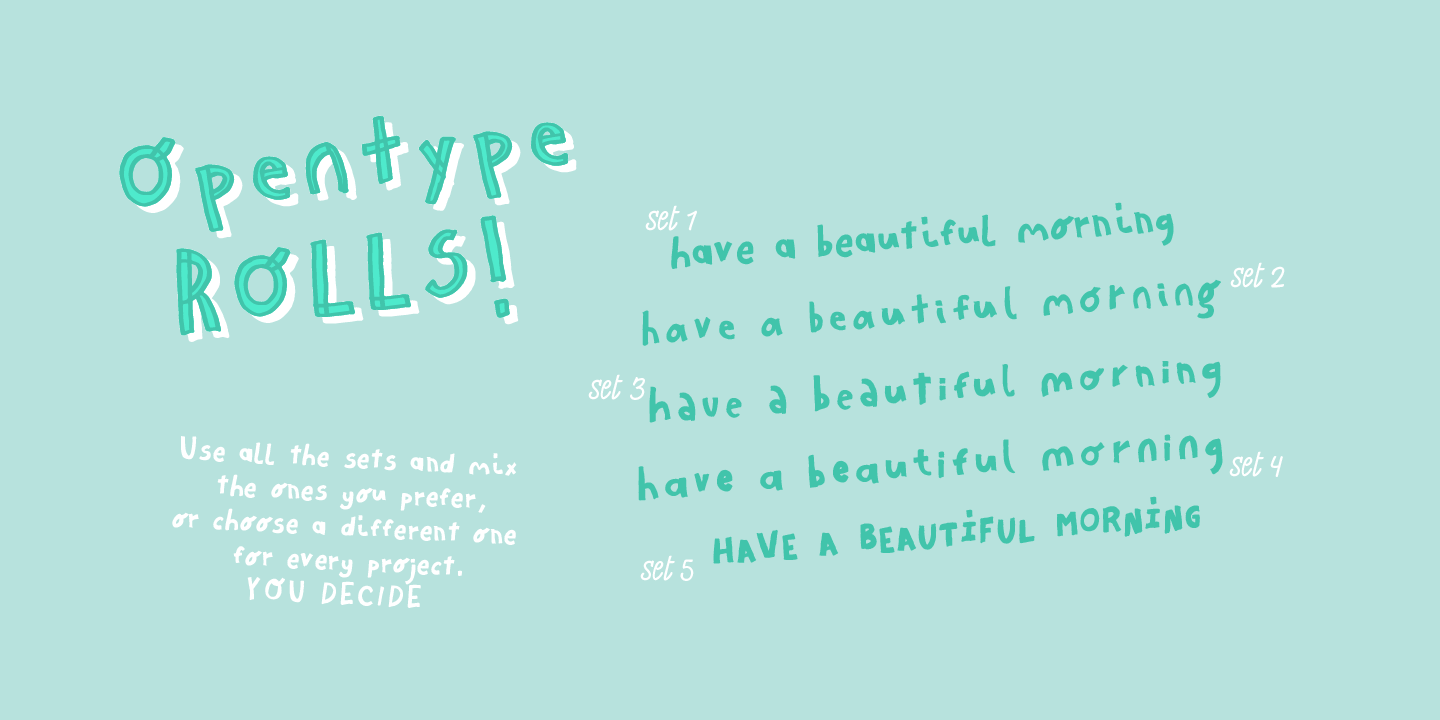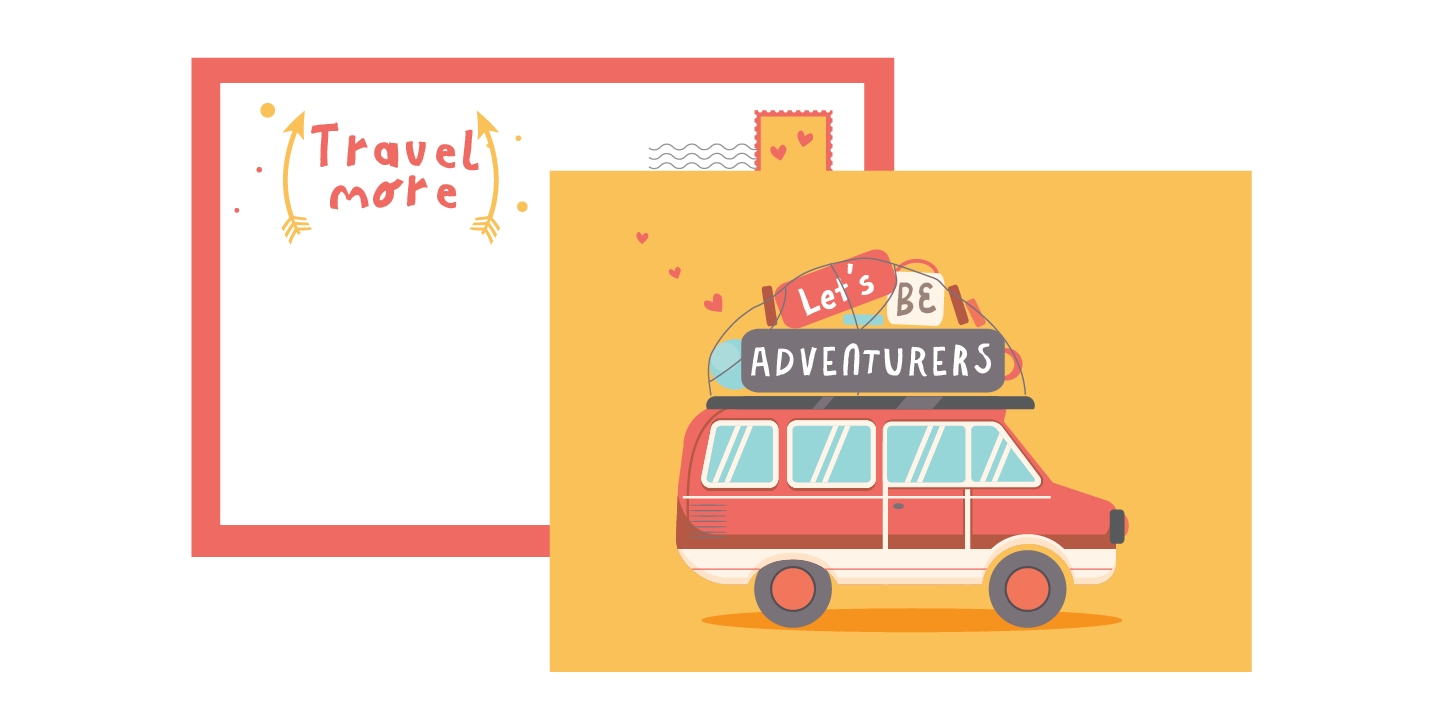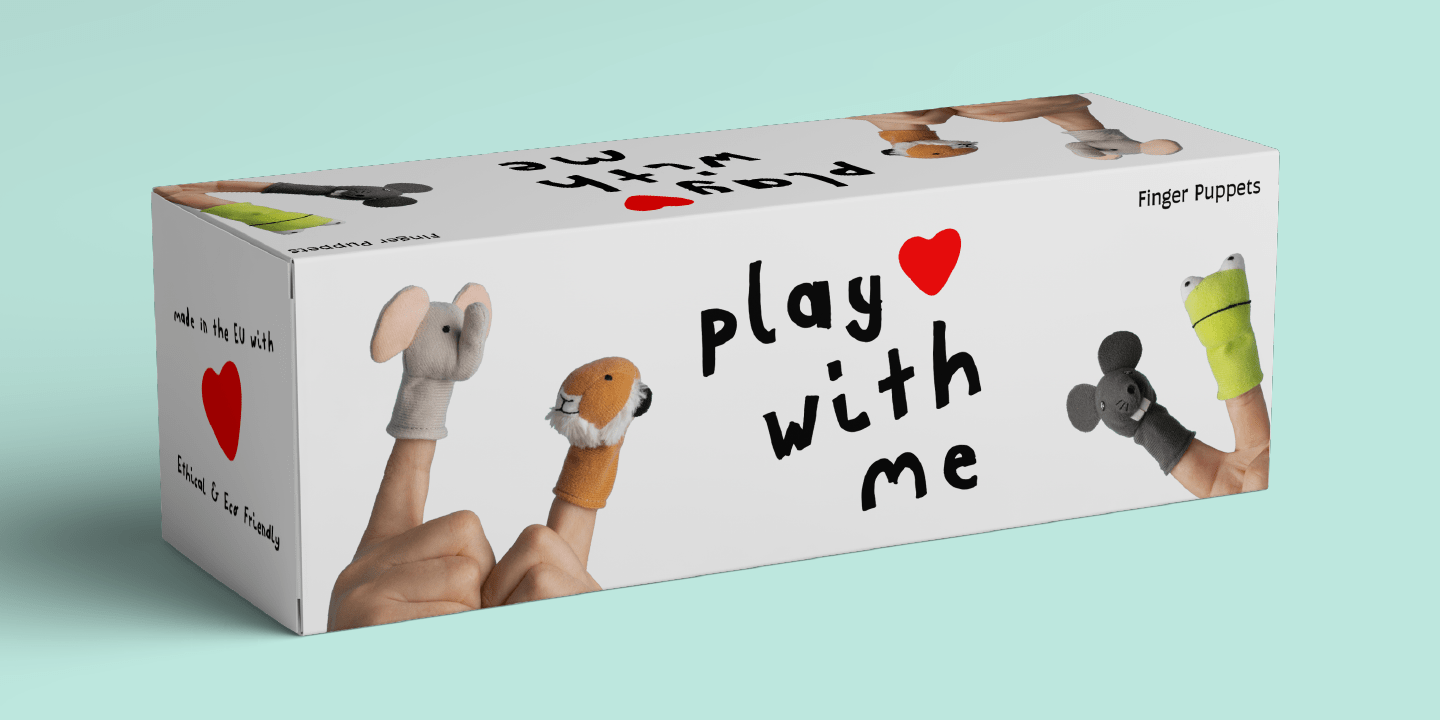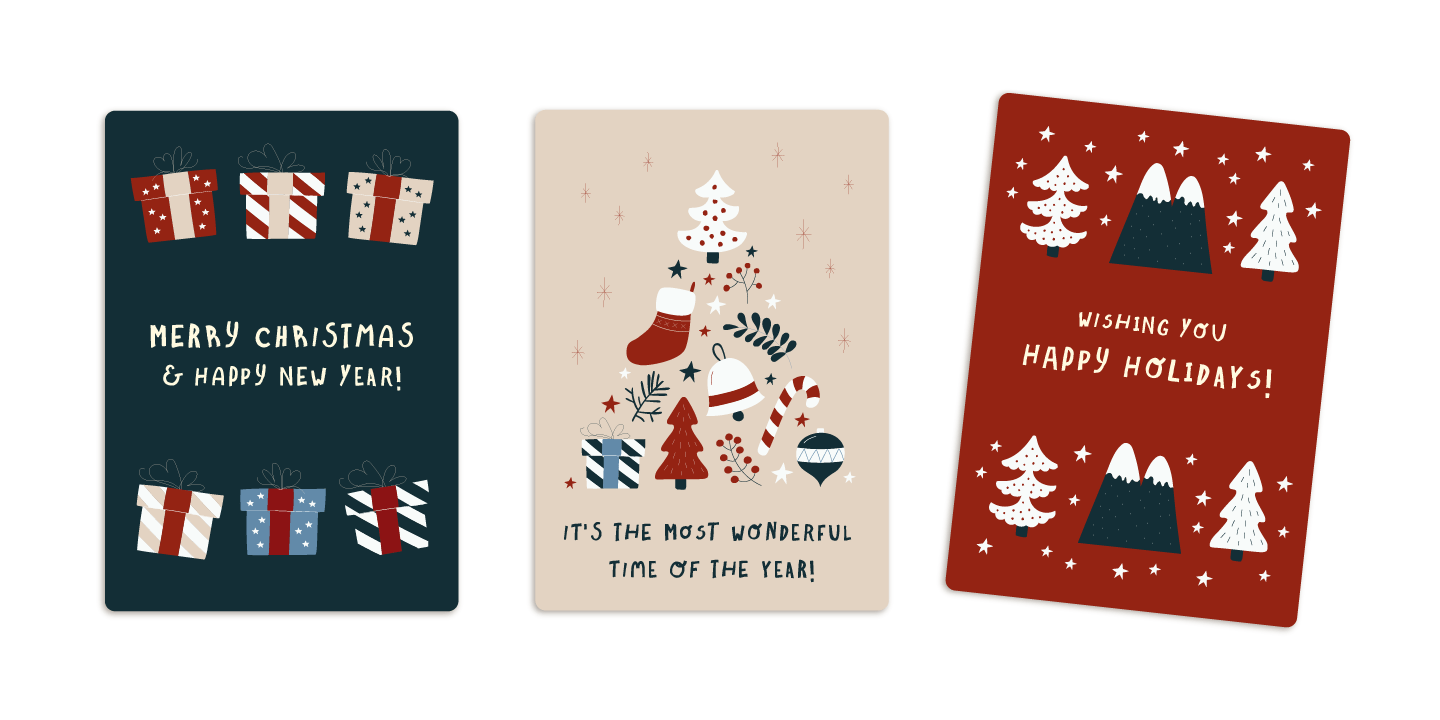
Guess What? A new hand-drawn font family has arrived! 5 different sets of letters were sketched using a felt tip marker on paper to get a realistic handmade feeling. The magic comes activating the Opentype features, the letters will randomly combined…